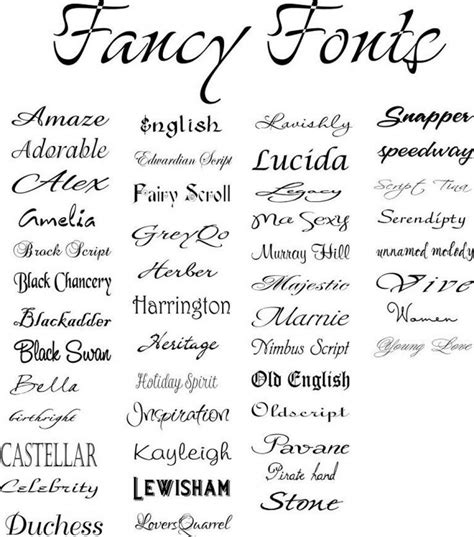
Tattoo Fonts Ideas, But with the dramatic flare created by the lettering, it is not so hard to see why. If your tattoo has the symbol ‘&’ in it, rather than writing it in a bland way, check out these awesome ampersand tattoo ideas.
While there are no rules that govern which type of font guys or girls should opt for, some fonts look better on women. Free celtic tattoo fonts tattoo font generator if you want a blast from the past our online tattoo font generator can whip up some celtic font free text. When you have a lot to say the best thing to do is to use a small enough font for space.
Typewriter font tattoos for the back. 'nothing happens until something moves' temporary tattoo. Famous megan fox tattoo designs + her removal; If your tattoo has the symbol ‘&’ in it, rather than writing it in a bland way, check out these awesome ampersand tattoo ideas.
As you can see, some tattoos are more intricate than others. The ultimate list of rhianna tattoo designs + meaning; 37 complete alphabets accompanied by 923 scripts and photos of body positions, just to give you an idea of some (of the many) possible positions for a tattoo. A few favorites include calligraphy, gothic, script, medieval, and classic. Since tattoo.
Free celtic tattoo fonts tattoo font generator if you want a blast from the past our online tattoo font generator can whip up some celtic font free text. 37 complete alphabets accompanied by 923 scripts and photos of body positions, just to give you an idea of some (of the many) possible positions for a tattoo. If your tattoo has.
Free celtic tattoo fonts tattoo font generator if you want a blast from the past our online tattoo font generator can whip up some celtic font free text. For this tattoo, the long strokes of this font make it easy for anyone to read. In this page we’ve put together some really cool cursive font tattoo ideas for your inspiration..
Cursive font tattoo for girl A few favorites include calligraphy, gothic, script, medieval, and classic. These fonts have covered a range of styles: We have 79 free tattoo, script fonts to offer for direct downloading · 1001 fonts is your favorite site for free fonts since 2001 Tribal tattoo, wolf tattoo, sleeve tattoo, wrist tattoos, skull tattoo, flower tattoos, lion.
Find and download the right font for your next tattoo. But with the dramatic flare created by the lettering, it is not so hard to see why. As you can see, some tattoos are more intricate than others. Those who want to look cool or jazz their tattoos up often use tattoo fonts like that. Fonts and quotes are great.
Script font for lengthy tattoos. Elaborate typewriter font tattoo art. Typewriter font tattoos for the arm. Cursive, script, simple and beautiful. In this app we’ve collected some really cool tattoo fonts ideas for your inspiration.
Do not miss our most special fonts for your tattoos, drawings, prints, murals. And lena dunham unveiled her latest tattoo on instagram on wednesday, seemingly in homage to the chronic illness. Here you'll find plenty of ideas for fonts, different ways of writing your tattoo script: The ultimate list of rhianna tattoo designs + meaning; The line work is sharp,.